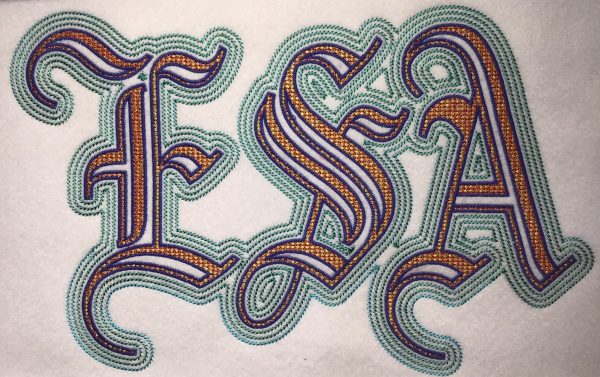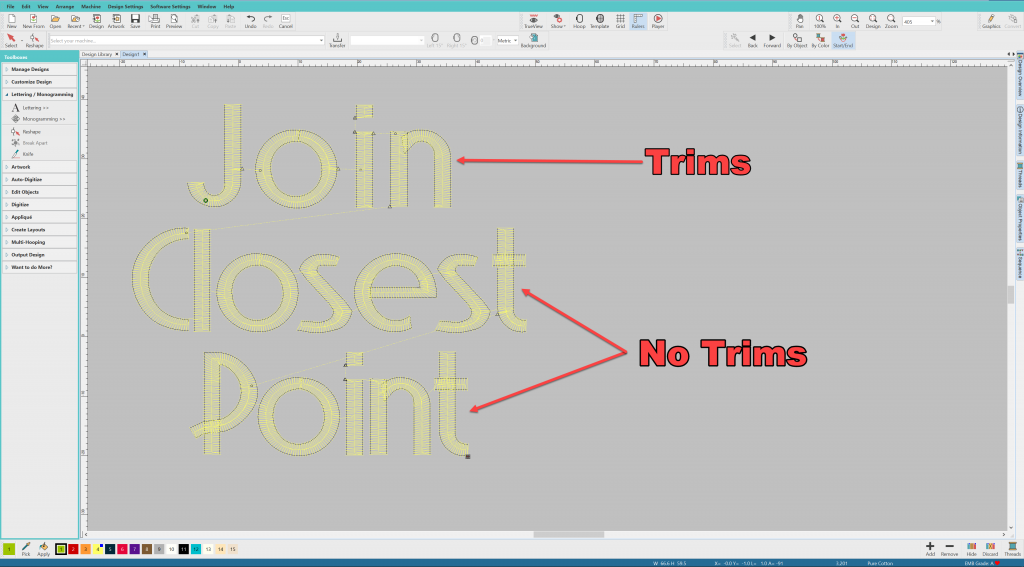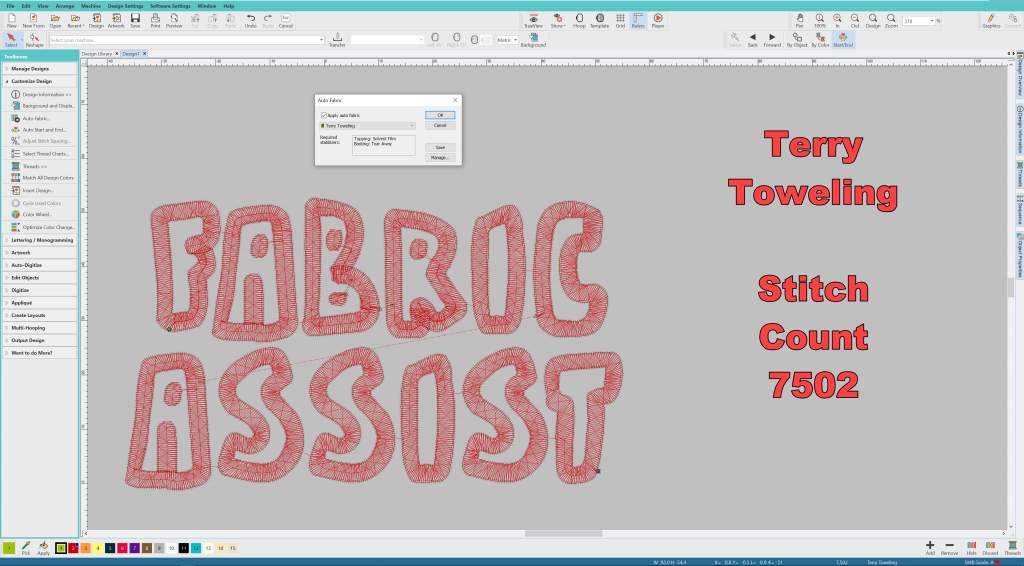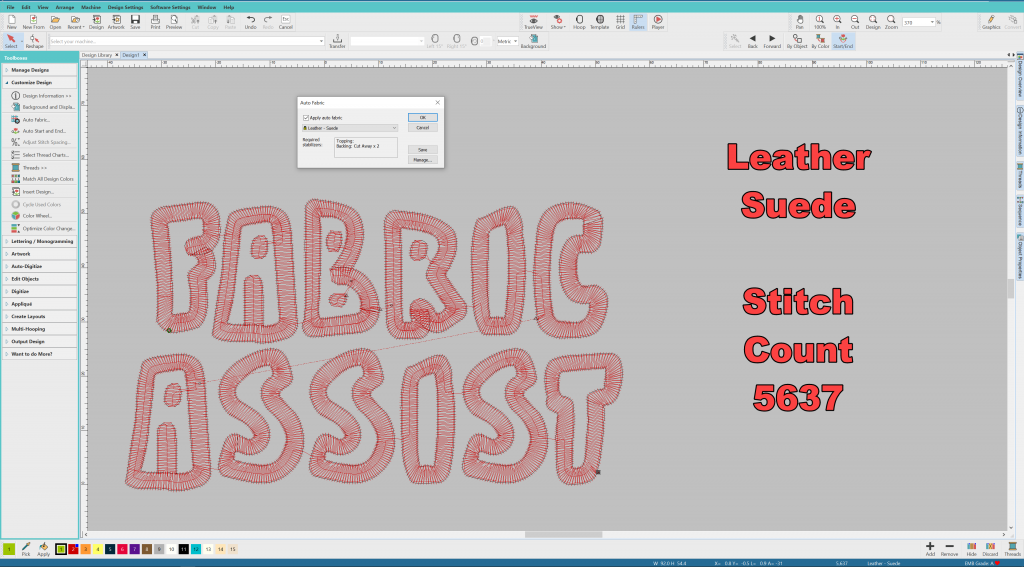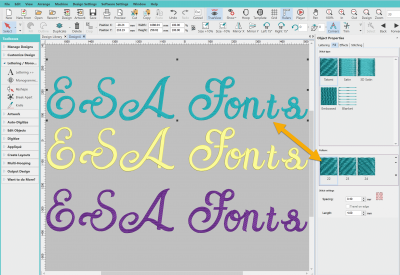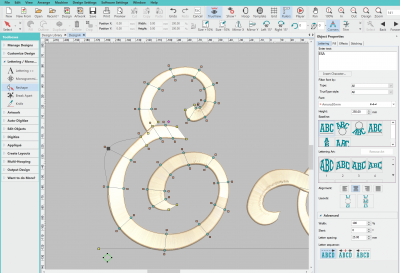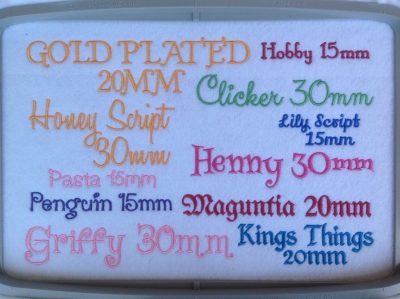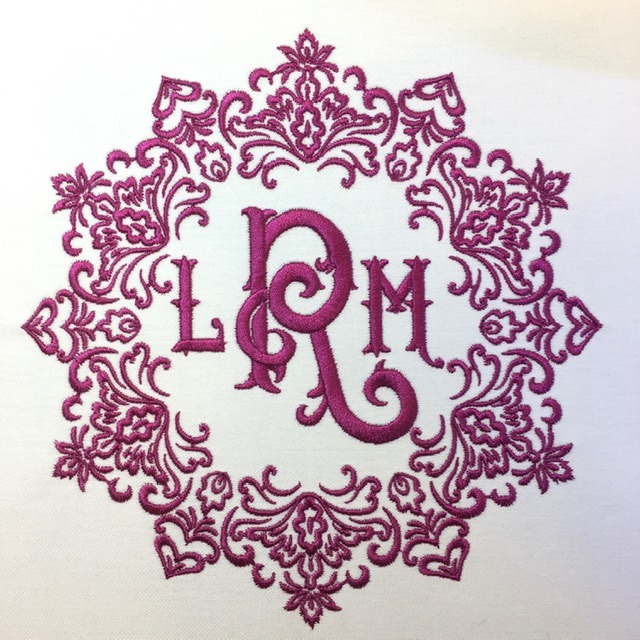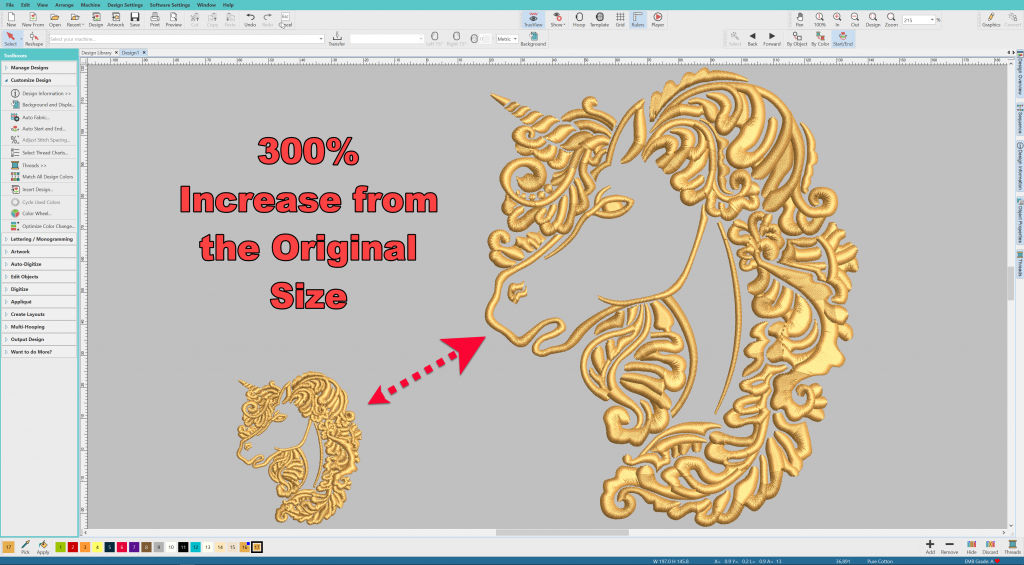
With many different types of machine embroidery fonts available (Truetype, ESA, BX, stitch file fonts, to name a few), it can be confusing to know why and when to use them.
We will help explain what each of these fonts are, the advantages and disadvantages of using them, and give you some recommendations on getting clean, crisp embroidery lettering every time.
Why Embroidery Fonts Matter
It’s hard for me to believe that I started my digitizing (punching) journey 37 years ago. When my first mentor taught me the rules of manually creating embroidery designs, his goal was always two-fold:
- Achieve the best visible results possible.
- The design must be machine-friendly to optimize production.
Concerning visual quality, he told me repeatedly during my training that the lettering within any design is just as, or even more, important than the actual logo. That statement is so true, you can have the most beautiful logo in the world, but if the text/font within the design looks sloppy, the entire design is ruined.
Back in those days, we had to punch every stitch within a design manually. I have to admit, doing lettering all day every day was tedious and boring. After you’ve digitized the letter 100,000 times, the excitement is gone.
Given my experience, let me be clear that all fonts available for embroidery these days are NOT created equal.
Understanding why some fonts look good and why others lack quality and appearance can contribute to a few factors. Let me explain…
Stitch File Fonts
The first type of fonts we’ll cover is what I like to call Stitch File Fonts. These are single letter embroidery designs. These fonts/letters have been digitized and converted to embroidery machine formats (such as PES, JEF, XXX, etc.) and are not what we could consider being “keyboard fonts” (that you can type out using your keyboard).
Stitch file fonts have been digitized at a specific size, which means that they’ll run best at the size they were created.
Resizing stitch file fonts often leaves the embroiderer unsatisfied with the finished stitch results when sizing adjustments are required. Unless you’re an experienced digitizer, other edits are usually not recommended for these files either as they are finished embroidery designs.
Although some of these fonts can be beautiful, the real downside of using stitch file fonts is that they are not keyboard-based. When using the font to write a text, the letters need to be inputted individually into a software program and arranged manually. This is a very tedious process and a big factor in why embroidery lettering is rarely done this way anymore.
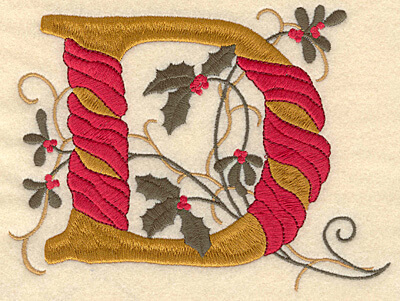
Fonts within Embroidery Software Programs and Machines
A far better option is to use the fonts included within various software programs or built within the embroidery machine. They usually stitch out nicely but work best within the software and machine developers’ suggested sizes.
Plus, creating layouts that include designs and text makes it much more effective and a less time-consuming process.
Often, the fonts that come included within your software are proprietary to that software brand. For example, the built-in fonts that come with Floriani will perform and stitch out well but are exclusive to the specific Floriani software brand. It’s kind of like the native file formats I mentioned in the Understanding Machine Embroidery File Formats article (click here to read more): meaning any embroidery machine can’t read them.
How To Add New Fonts to Your Embroidery Software
Although the proprietary fonts that come with your software usually work well, adding new fonts to your software can often lead to issues.
Instead, to add new fonts to your software, you usually need to purchase TrueType, BX, or ESA fonts (these are the primary 3). However, none of these fonts are proprietary, but some do work much better than others. Depending on which brand you own, here is the type of font you could add to your software (alongside possible proprietary fonts the brand itself may sell):
| Embroidery Software | Potential Add-ons |
| Hatch Embroidery Software | ESA & TrueType Fonts |
| Wilcom E3 & E4 Embroidery Software | ESA & TrueType Fonts |
| Janome V.5 Embroidery Software | ESA & TrueType Fonts |
| Brother PE Design Embroidery Software | TrueType Fonts |
| Floriani Embroidery Software | TrueType Fonts |
| Bernina Embroidery Software | TrueType Fonts |
| Masterworks III Embroidery Software | TrueType Fonts |
| DIME Embroidery Software | TrueType Fonts |
What are Converted TrueType Embroidery Fonts (TTF)?